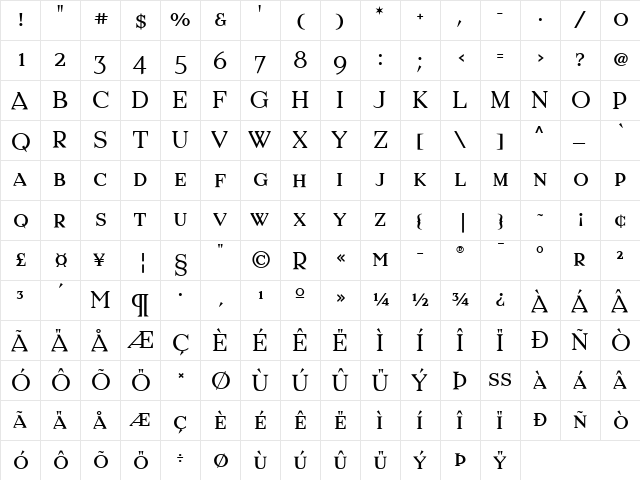
VerandaPosterSG Regular
| Foundry | Spiece Graphics |
Design Context for VerandaPosterSG Typeface
VerandaPosterSG offers clean, dependable letterforms without strong stylistic allegiance, making it a practical choice for designers who need flexibility.